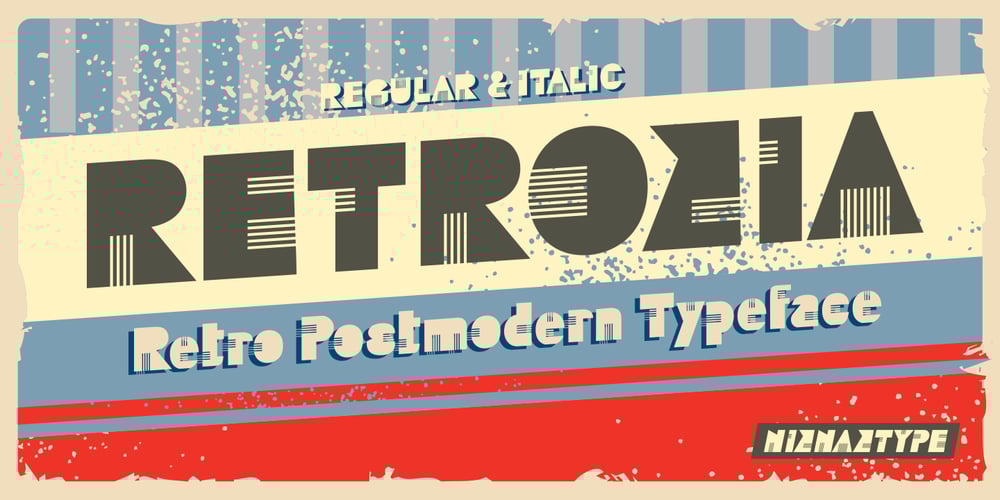
Retrozia Font Family was designed by Muhammad Nazarudin and published by Niznaztype. Retrozia contains 2 styles and family package options. Retrozia is a retro postmodern typeface. This font very uniqueshape, because all glyps in Retrozia have a retro, vintage andpostmodern style characters. Retrozia save in two styles, regularand italic. You can used this font for any designs. Such as poster,social media, wallpainting, t-shirt, headline etc.Retrozia consist of :- Uppercase- Lowercase- Numeral and punctuation- Multilingual LanguagePlease, enjoy it with Retrozia, very unique glyphs with retro andvintage styles. Please, enjoy it with my this font product.Send me email in emnazar@gmail.com if you have any question.Thank a lot